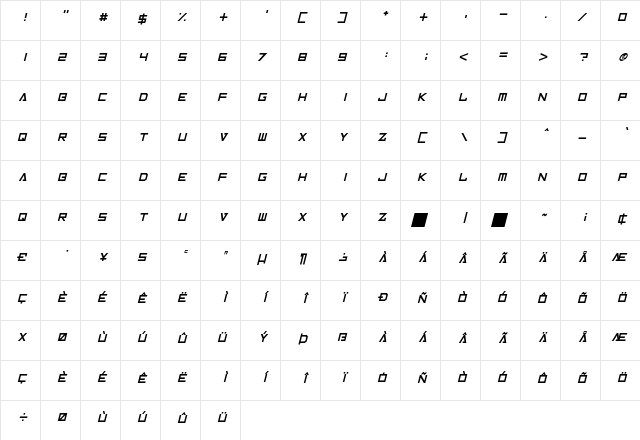
Inversionz Unboxed Italic
| Designer | Darrell Flood |
Design Context for Inversionz Unboxed Typeface
Inversionz Unboxed offers clean, dependable letterforms without strong stylistic allegiance, making it a practical choice for designers who need flexibility. The dynamic lean of this cut emphasises speed and emphasis in any layout.
Pro Tip: Try Inversionz Unboxed for annotation and caption copy alongside an upright companion — the contrast in angle creates a dynamic but ordered typographic system.